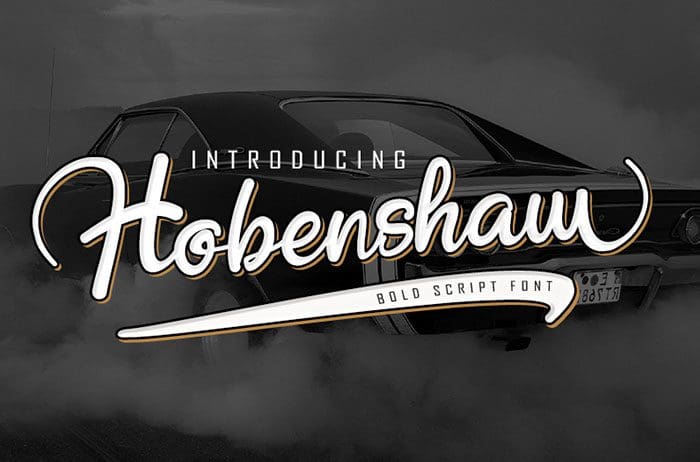
Free Hobenshaw Handwritten Font
Hobenshaw Handwritten Font
Free Hobenshaw handwritten font is a bold and fun with a lot of unique charm. Get inspired by its urban feel! Introducing a new hand-drawn font carefully crafted with a personal charm. It is a hot font, perfect for a design that stands out even if it’s a logo, or simply a stylish text over a background image. Created this font by Thomas Aradea. You can also search more free Handwritten Fonts.